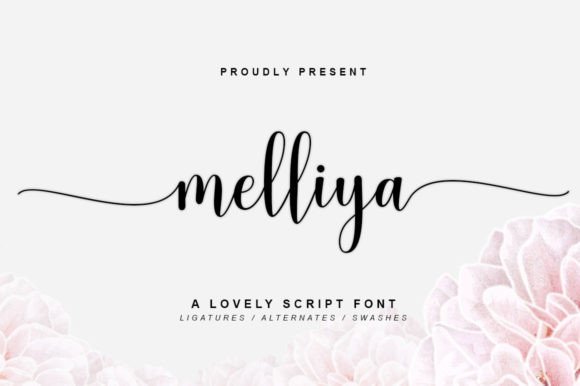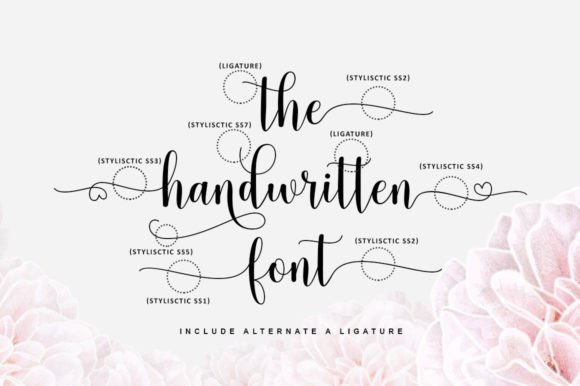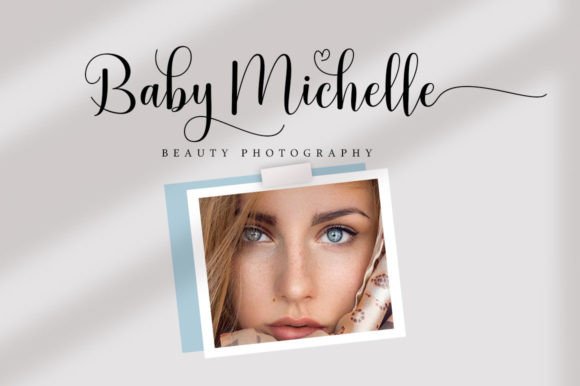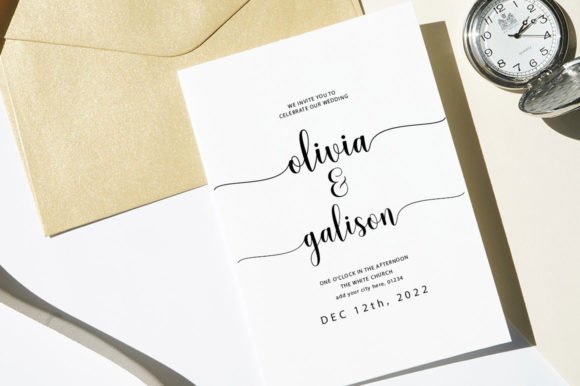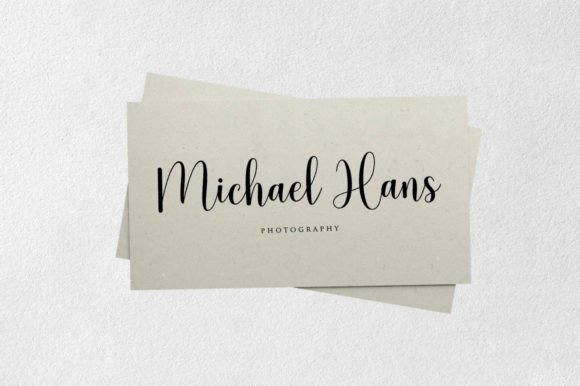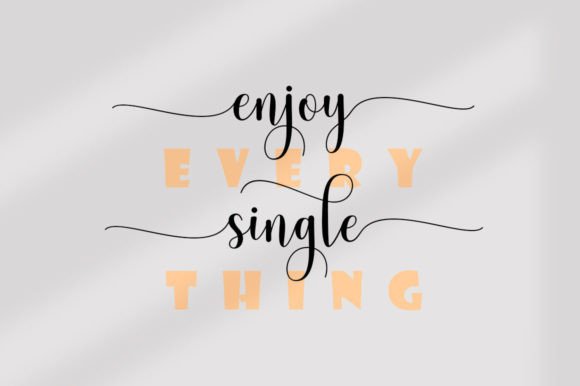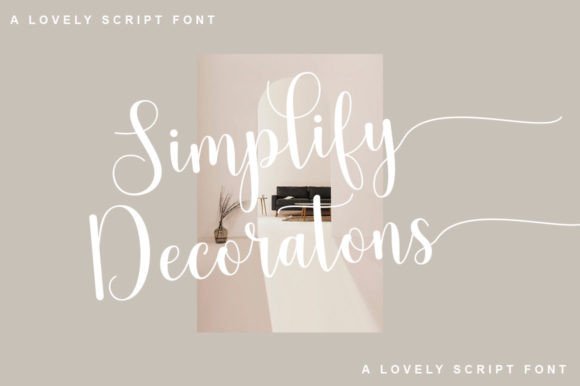
About Melliya Font
The Melliya Font Download is a flowing script typeface designed with elegance and charm. Its graceful strokes and natural flow give every project a polished and timeless look. As a result, it has become a favorite for designers who want to add sophistication while keeping their work approachable and stylish.
Moreover, Melliya is incredibly versatile. It can be used for wedding invitations, branding projects, social media content, or even personal crafts. In addition, its balance of beauty and readability makes it suitable for both large headlines and detailed text. Whether you are a beginner or an experienced designer, Melliya provides the tools to create standout designs.
Features of Melliya Font
When you choose the Melliya Font Download, you gain access to several unique features:
A flowing handwritten script with elegant curves
Smooth and balanced strokes for refined results
Timeless design that never goes out of style
Strong readability across digital and print projects
A versatile typeface suitable for many occasions
Best Uses for Melliya Font
The Melliya Font Download adapts perfectly to a wide range of projects. For example, it works well in:
Wedding invitations and stationery – Create elegant and romantic designs
Logos and branding – Perfect for fashion, lifestyle, and boutique businesses
Social media graphics – Stylish posts that capture attention instantly
Greeting cards and thank you notes – Add warmth and sophistication
Event promotions and posters – Eye-catching layouts with graceful typography
DIY crafts and personal projects – A handwritten look with timeless charm
Because of this versatility, Melliya quickly becomes an essential font in any creative library.
Why Choose Melliya Font
Unlike ordinary script fonts, the Melliya Font Download offers a combination of elegance and usability. Its flowing strokes create a romantic look, while its structure ensures clarity in every design. In addition, its timeless style guarantees that your projects will remain relevant and stylish for years to come.
Furthermore, Melliya is easy to use across both digital tools and traditional print projects. As a result, it saves time for designers while still delivering professional-quality results.
In conclusion, the Melliya Font Download is an elegant handwritten script that blends timeless beauty with modern usability. From invitations and branding to social media and DIY crafts, this font enhances your designs with sophistication and charm.